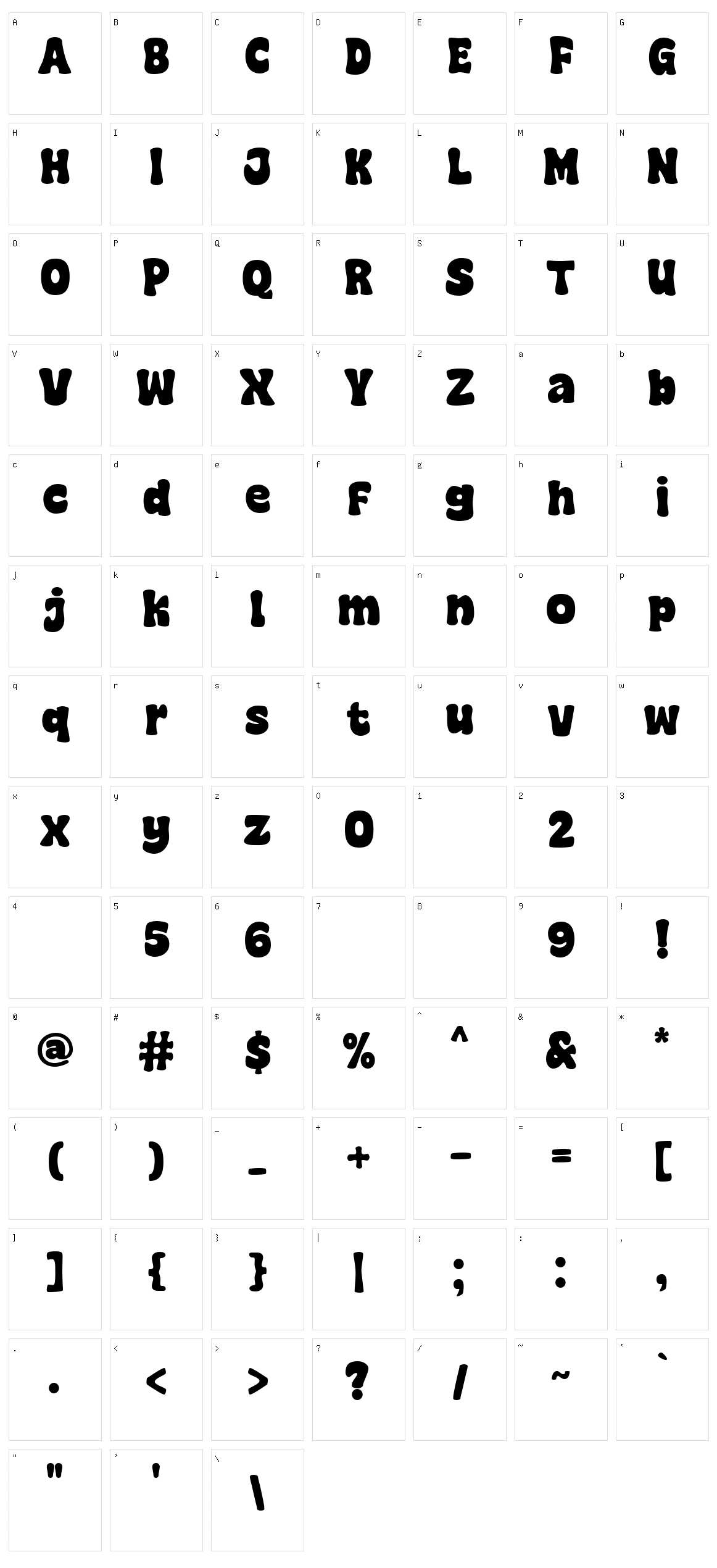
Super Senior: A Bold, Round & Fun Font
Super Senior bursts onto the scene with a personality as big as its characters! This bold and round font is designed to bring a touch of fun and whimsy to any project.